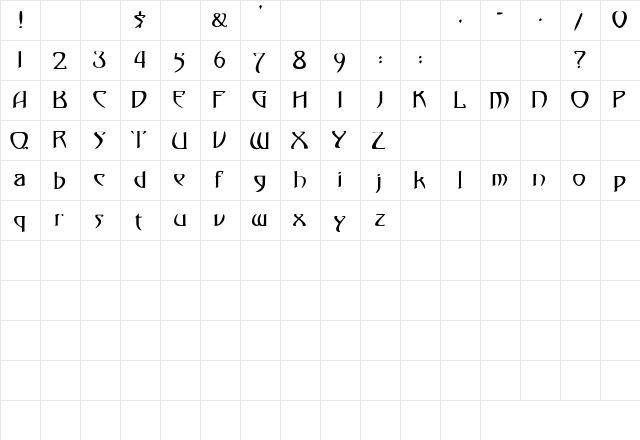
30 Regular Font Preview
30 Regular
Design Context for 30 Typeface
30 is a composed and adaptable typeface that performs quietly and consistently across a wide range of design contexts.